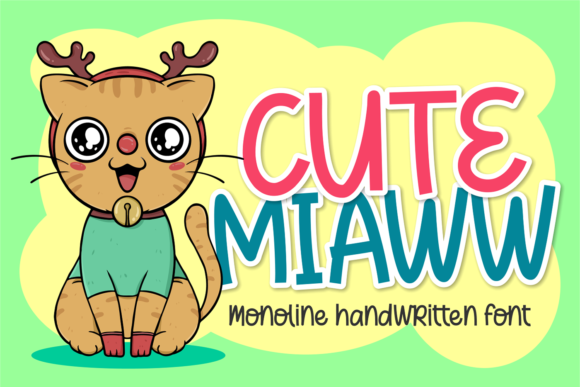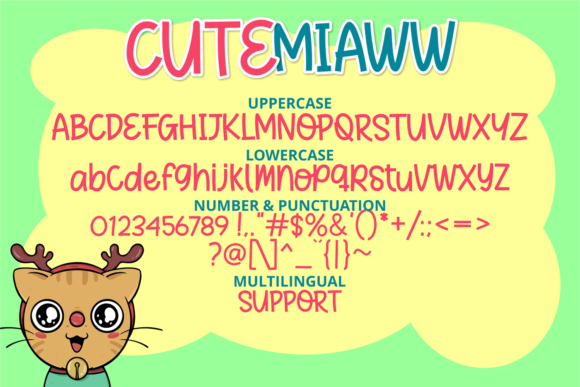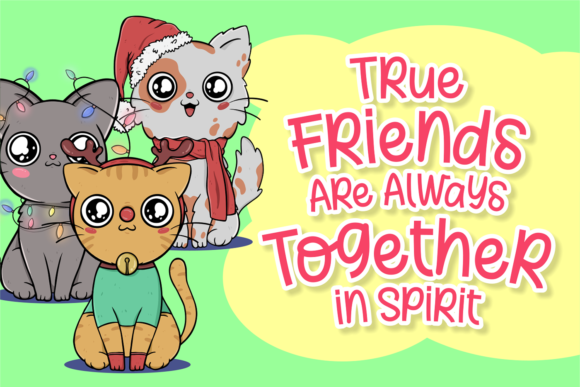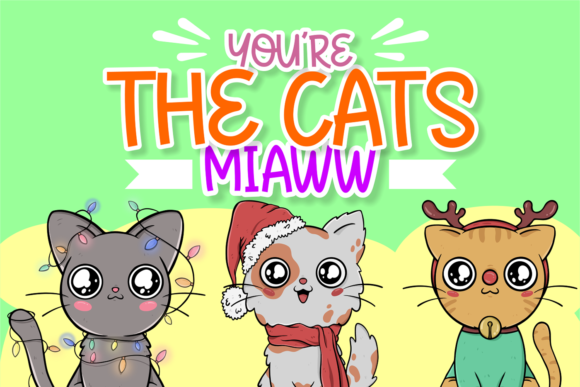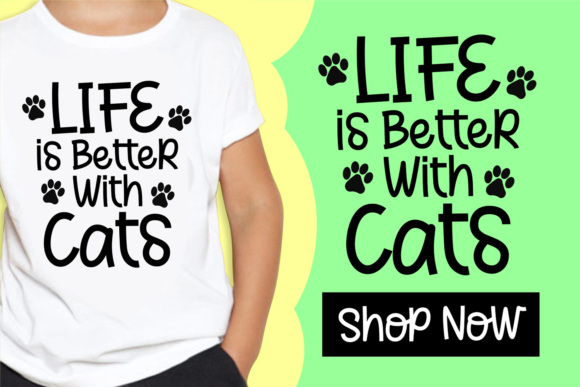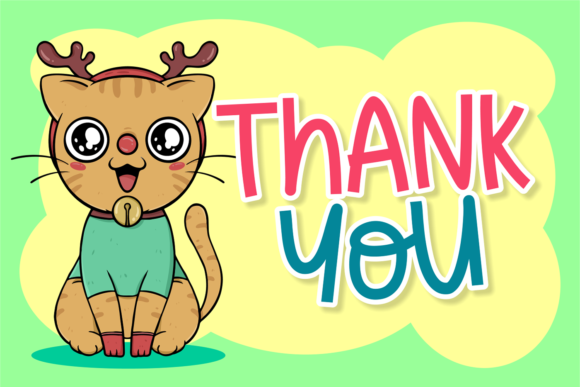
Cute Miaww Font
About Cute Miaww Font
Cute Miaww is a gorgeous handwritten font with a friendly feel. Whether you’re looking for fonts for Instagram or calligraphy scripts for DIY projects, Cute Miaww will turn any creative idea into a true piece of art!